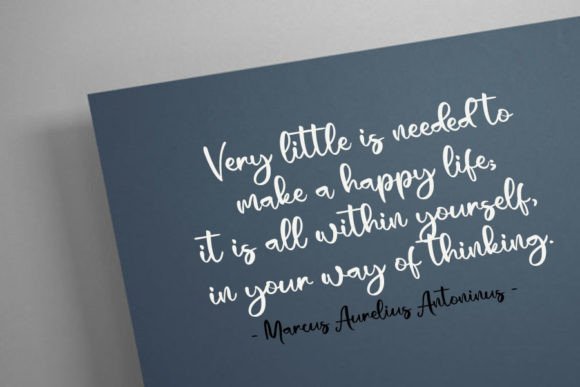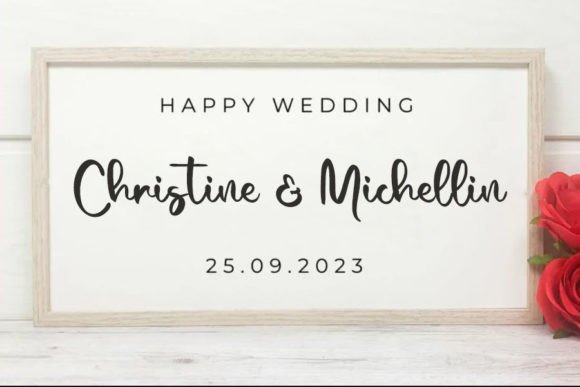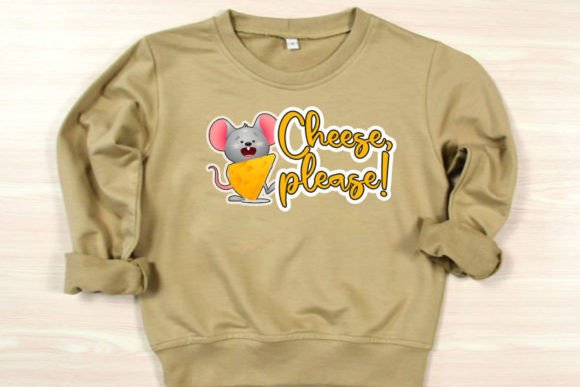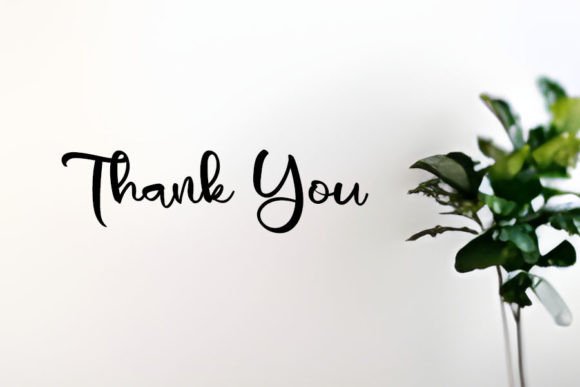
Introduction to Sillence Font
As I sat at my desk, staring at a blank sheet of paper, I knew exactly what I needed to bring my creative vision to life. A touch of elegance, a dash of sophistication, and a hint of handwritten charm. That’s when I stumbled upon the Sillence Font – a game-changer for designers like me. With its flowing lines and gorgeous glyphs, this font is a dream come true for anyone looking to add a high-quality, personal touch to their design project.
Whether you’re working on a wedding invitation, a quote, or a business card, the Sillence Font is an absolute must-have. Its stunning alternates and varying baseline make it perfect for designers who want to create something truly unique and eye-catching. And the best part? It’s available for free download, making it an invaluable resource for any creative project.
Key Features of Sillence Font
- High-quality design for creative projects, including logos, posters, and graphics.
- Unique, modern design with a transparent background, allowing for versatile use in various design applications.
- Optimized for use at high resolutions, ensuring crisp and clear display on screens and printed materials.
- Designed for use in various digital and print-based creative projects, including branding, advertising, and editorial content.
Honest Review: Sillence Font
I recently came across the Sillence Font, and I must say it’s a high-quality addition to any design resource library. The font’s clean and minimalist design makes it perfect for creative projects where a transparent background is a must.
- ✨ High-quality design with a transparent background
However, I do have to mention a few limitations. The Sillence Font may not be the best choice for projects that require bold or dramatic typography. Additionally, the font’s simplicity can sometimes make it feel a bit bland.
Overall, I’d say the Sillence Font is a solid addition to any design library. While it may not be perfect for every project, it’s a reliable choice for creative endeavors where a clean and minimalist aesthetic is desired.
- ⚠️ May not be suitable for projects requiring bold or dramatic typography
- ⚠️ Can feel bland in certain design contexts
Sillence Font
The Sillence Font is a high-quality design resource perfect for creative projects. It offers a unique and stylish look that can elevate your designs. To get started, download the font from a reliable source and ensure it’s compatible with your operating system.
Some tips for getting the most out of the Sillence Font include:
1. Use it with a transparent background to create a modern look.
2. Experiment with different font sizes and styles to create visual interest.
Some common use cases for the Sillence Font include:
1. Creating a brand identity or logo.
2. Designing a website or mobile app.
3. Making a presentation or report.